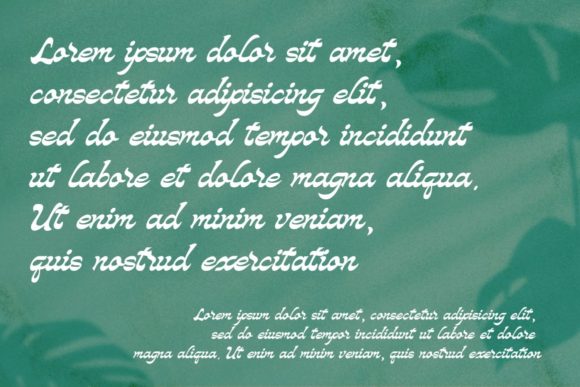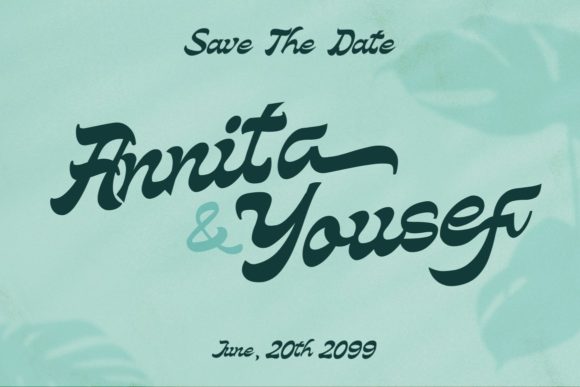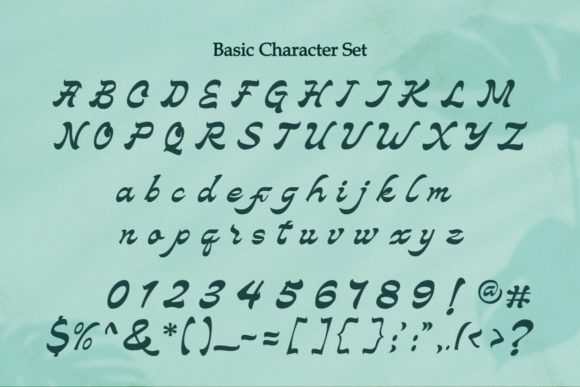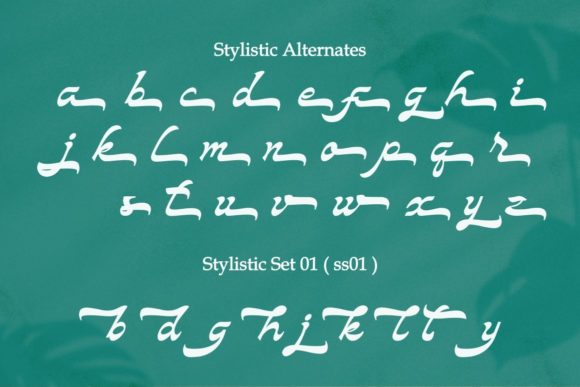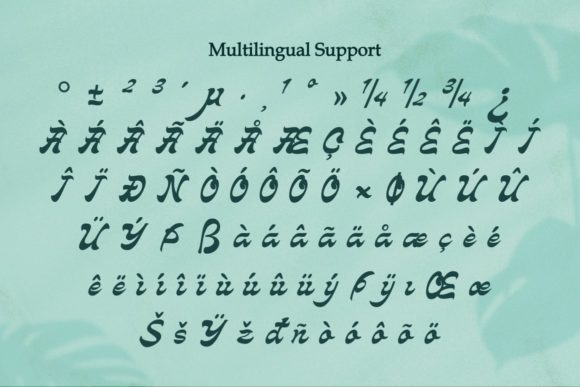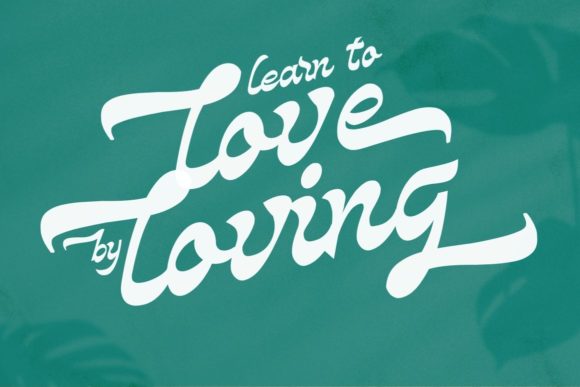
Introducing Callicotez Font: The Ultimate Retro Display Font for Creative Projects
Are you a designer, crafter, or educator looking for a unique and playful font to add a touch of personality to your projects? Look no further than Callicotez, a retro-styled display font that’s perfect for children’s activities, school projects, and more. In this article, we’ll dive into the features and benefits of Callicotez, and explore how it can elevate your creative endeavors.
A Retro-Styled Font with a Playful Twist
Callicotez is a one-of-a-kind font that embodies playfulness and authenticity. Its retro design makes it an excellent choice for projects that require a nostalgic feel, such as children’s books, educational materials, and craft projects. The font’s unique style is sure to capture the attention of your audience and add a touch of whimsy to your work.
PUA Encoding for Easy Access to Glyphs and Swashes
One of the standout features of Callicotez is its PUA (Private Use Area) encoding. This means that you can access all of the font’s glyphs and swashes with ease, giving you maximum flexibility and creative control. With PUA encoding, you can effortlessly insert special characters, ligatures, and other unique elements into your text, making your projects truly stand out.
Perfect for Children’s Activities and School Projects
Callicotez is specifically designed with children’s activities and school projects in mind. Its playful and engaging style makes it an excellent choice for:
- Children’s books and storybooks
- Educational materials, such as worksheets and activity sheets
- Craft projects, like DIY cards and posters
- School posters and announcements
Callicotez offers a range of benefits for designers and crafters, including:
- Unique and playful style: Add a touch of personality to your projects with Callicotez’s distinctive retro design.
- Ease of use: PUA encoding makes it simple to access and use the font’s glyphs and swashes.
- Flexibility: Use Callicotez for a wide range of projects, from digital designs to print materials.
- Time-saving: With Callicotez, you can quickly create engaging and professional-looking projects without spending hours on design.
How to Use Callicotez in Your Projects
- Use it for headings and titles: Callicotez is perfect for headings and titles, where its playful style can really shine.